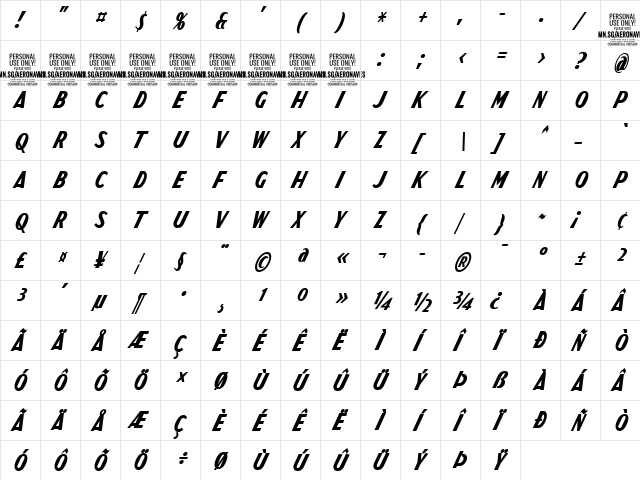
Aeronaves PERSONAL USE ONLY Regular
| Foundry | Mans Greback |
| Designer | Mans Greback |
Design Context for Aeronaves PERSONAL USE ONLY Typeface
Aeronaves PERSONAL USE ONLY takes a measured approach to typography — its balanced proportions and neutral character make it a reliable workhorse for both digital and print work.